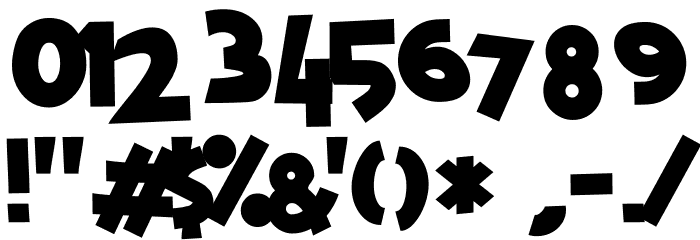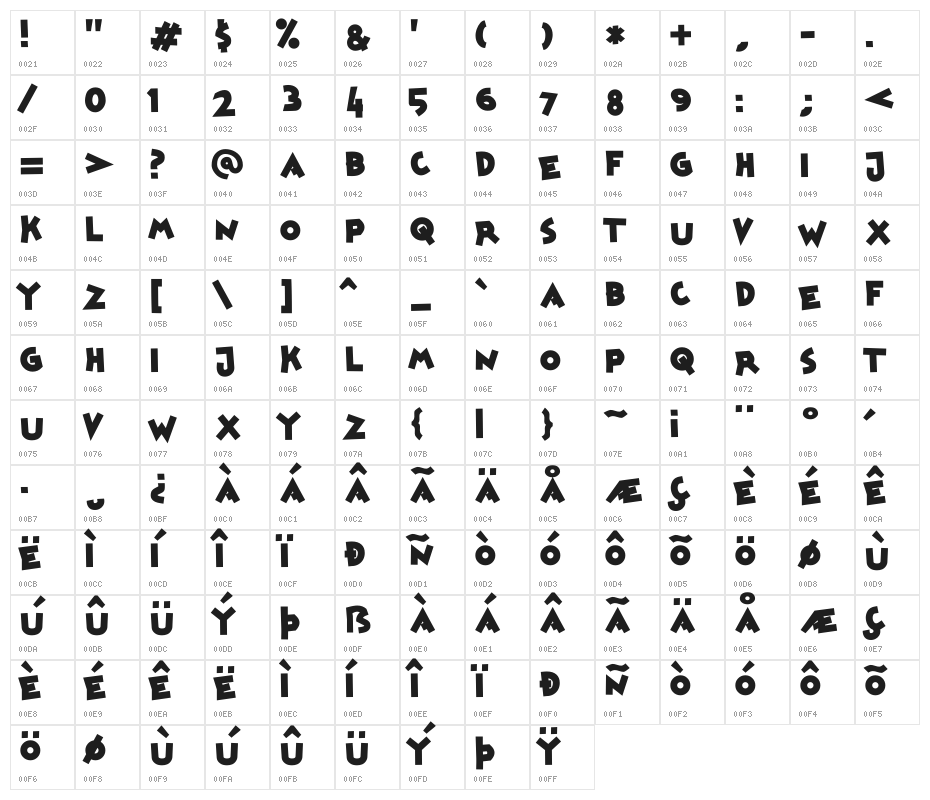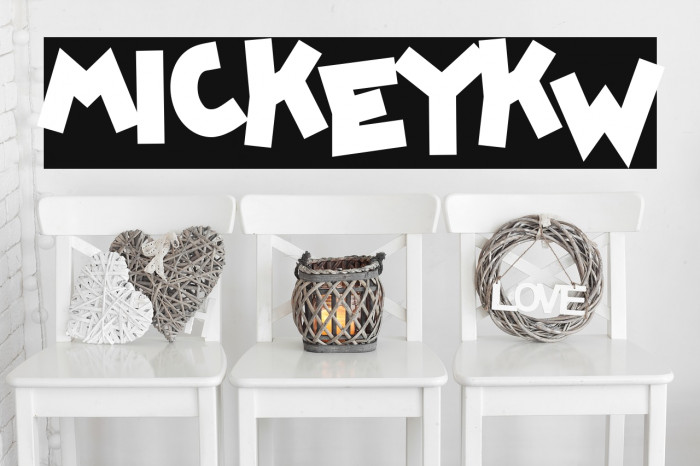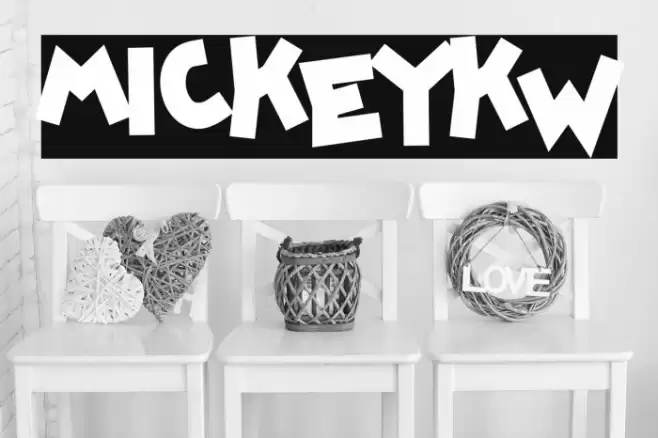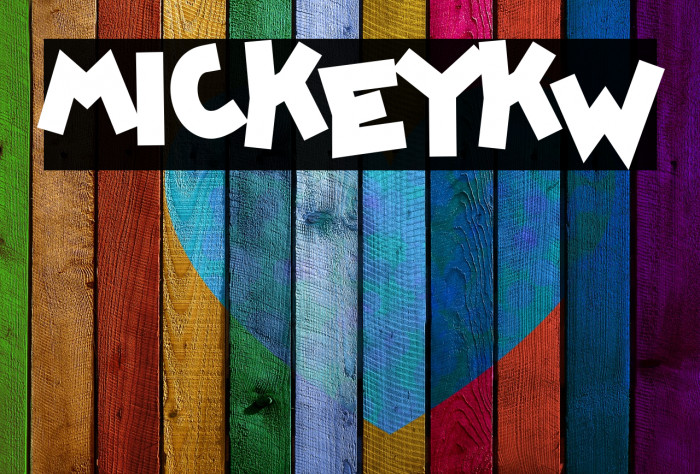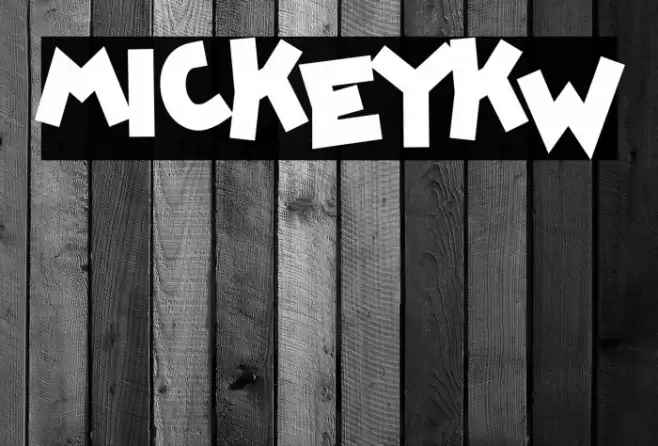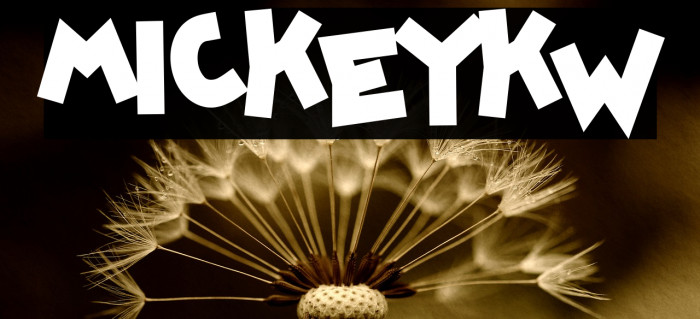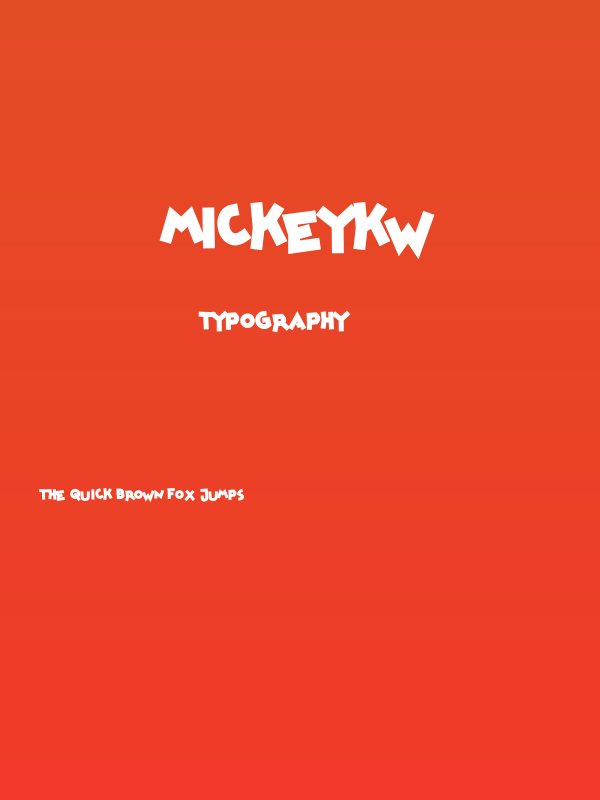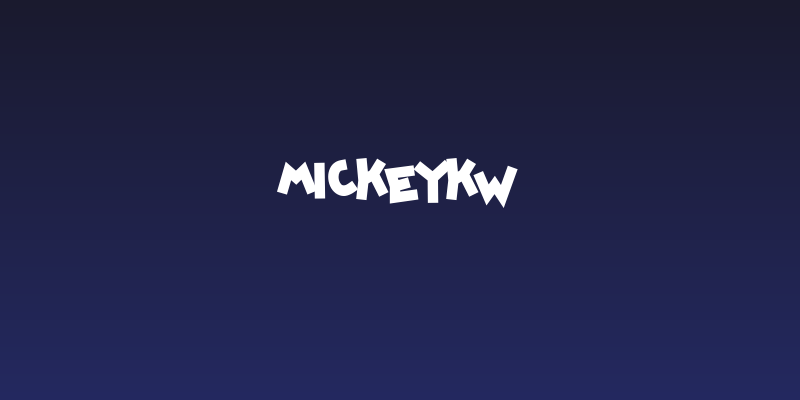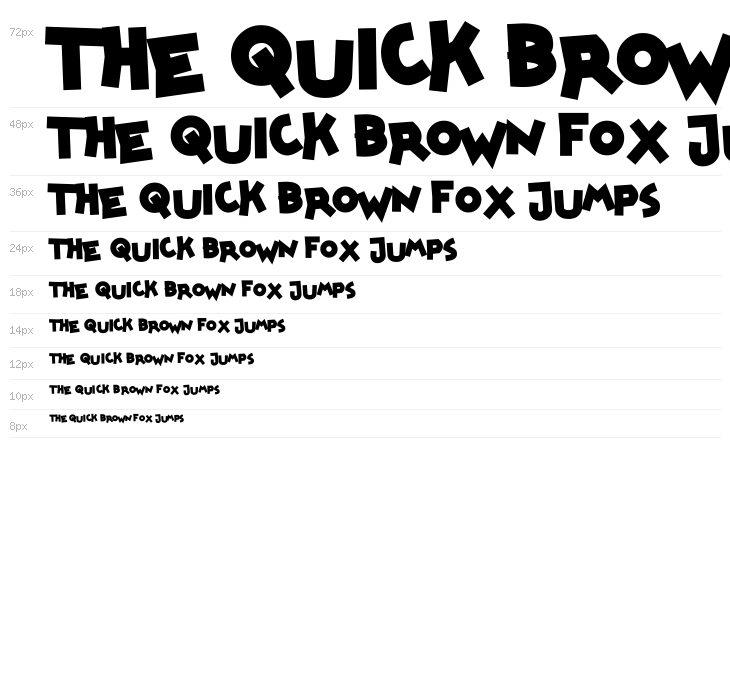
mickeykw Font
mickeykw Description
This playful and bold font features thick, exaggerated strokes with a whimsical, cartoon-like appearance. The characters are highly stylized with uneven edges and a dynamic, energetic feel. The uppercase and lowercase letters share a consistent style, maintaining a sense of fun and creativity. Numbers and special characters are equally bold and expressive, making them stand out. The font's overall design is reminiscent of classic animated styles, perfect for capturing attention and conveying a sense of joy and excitement.
| Overall Style | Playful, Cartoon-like, Energetic |
| Use Case | Headlines, Logos, Posters, Children's content |
| Proposed Projects | Ideal for children's books, animated movie titles, playful branding, and any project requiring a fun, lively typeface. |